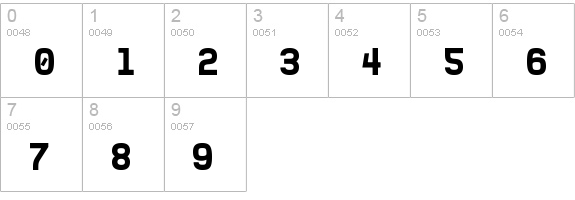
FauxCRA-Bold is a strong, high-contrast variant in the FauxCRA typeface family \xE2\x80\x94 well suited to headlines, attention-grabbing titles, and strong calls-to-action.
FauxCRA-Bold is a bold and eye-catching font that exudes confidence and strength. Its sleek and modern design makes it a versatile choice for a wide range of projects, from branding to editorial design. This font is perfect for creating impactful headlines and striking logos that demand attention. And the best part? FauxCRA-Bold is available for free download at FontsMarket.com. You can easily add this dynamic font to your collection and start using it in your designs right away. Don't miss out on the opportunity to enhance your projects with the bold and powerful aesthetic of FauxCRA-Bold - get your free download today!